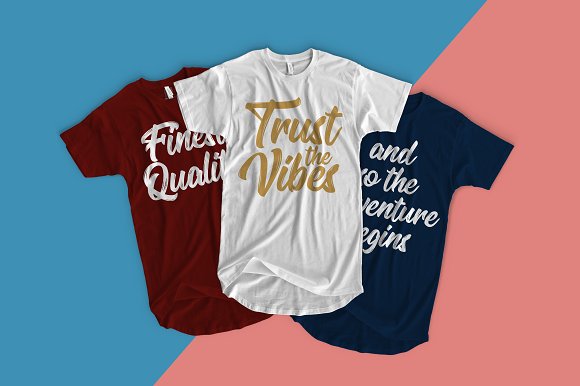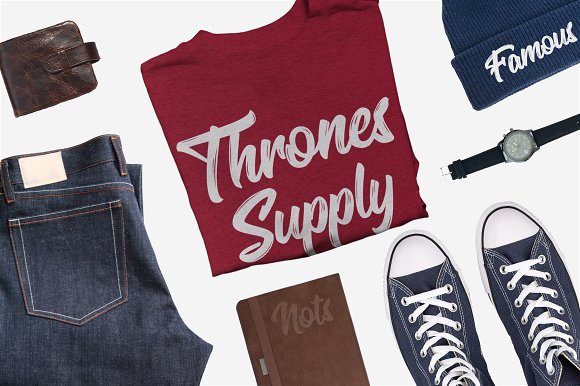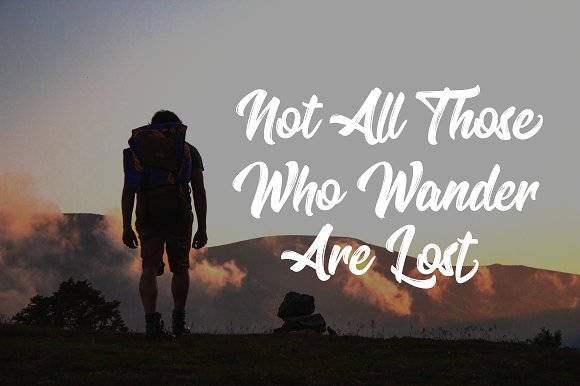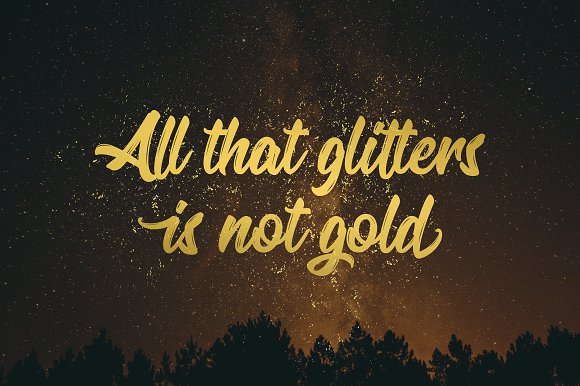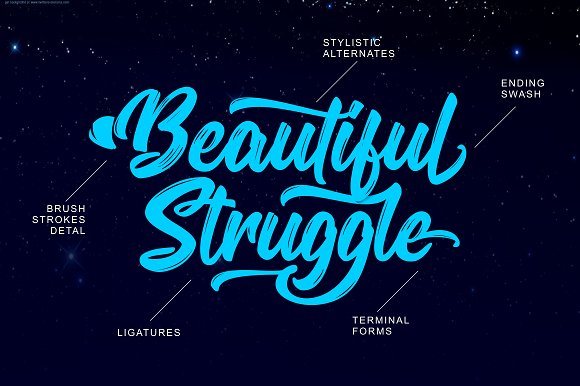
Oraqle Script Font
Introducing: Oraqle Script a brush lettering font with bold strokes that will make it look very stand out. Oraqle Script also has impressive movement with clean look. You can use it for all your needs, such as a logo, printed quotes, badge, insignia, packaging, headline, poster, t-shirt/apparel, greeting card, and wedding invitation, & etc.